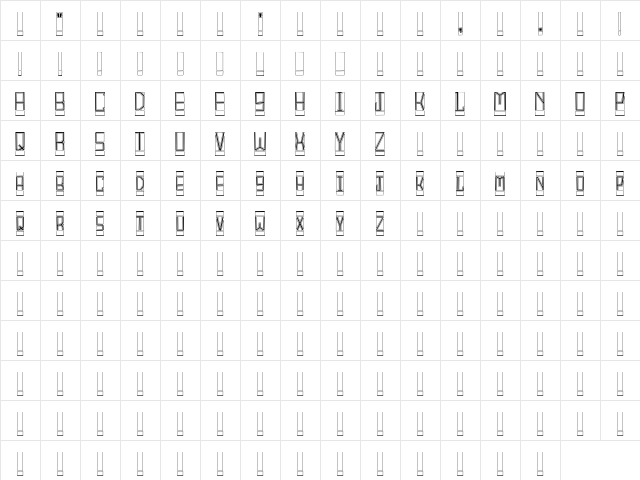
Complete BlockTitling Outline glyph index. Displaying only characters natively supported by BlockTitling Outline font.
BlockTitling is built around its visual character rather than neutral utility - its distinctive forms are designed to make an impression at display sizes.